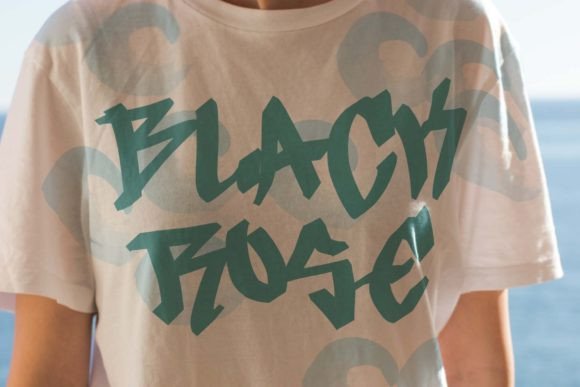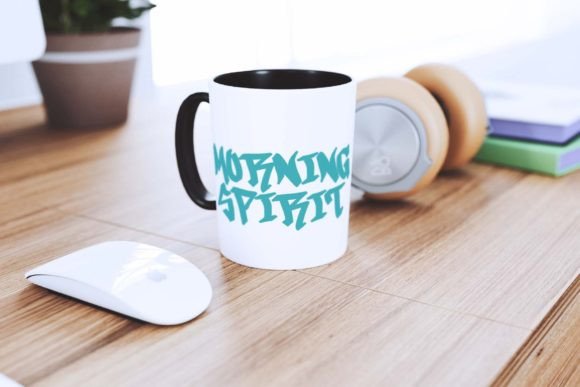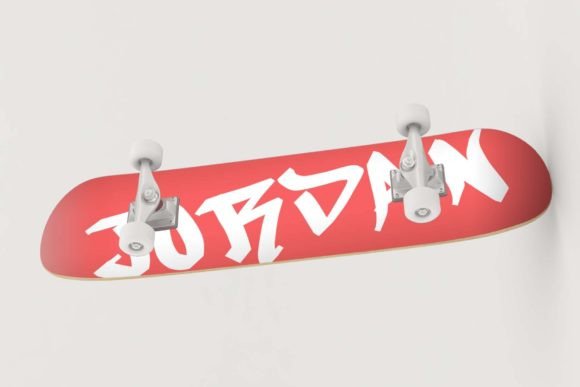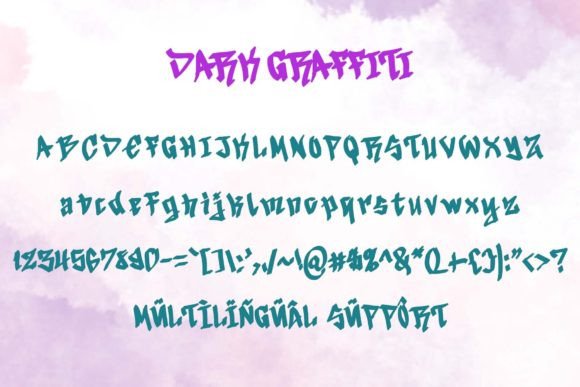
Unleash Your Creativity with Dark Graffiti Font
Are you a designer, artist, or crafter looking for a unique and elegant font to elevate your creative projects? Look no further than the Dark Graffiti Font. This stunning font is perfect for adding a touch of edginess and sophistication to your designs, making it ideal for a wide range of applications.
What is Dark Graffiti Font?
Dark Graffiti is a beautifully crafted graffiti font that boasts an elegant and distinctive style. It is designed to provide a bold and eye-catching look, making it perfect for designs that require a statement piece. The font comes equipped with a comprehensive set of characters, including uppercase and lowercase letters, numerals, punctuation marks, and multilingual support.
Key Features of Dark Graffiti Font
• Uppercase and Lowercase Letters: The font includes a full set of uppercase and lowercase letters, allowing you to create a wide range of designs and text styles.
• Numerals and Punctuation: The font also includes a set of numerals and punctuation marks, making it easy to add numbers and special characters to your designs.
• Multilingual Support: With multilingual support, you can create designs in multiple languages, making it perfect for global brands and projects.
Uses of Dark Graffiti Font
Dark Graffiti Font is an incredibly versatile font that can be used for a wide range of creative projects, including:
• Street Art and Wall Paintings: Add a touch of elegance and sophistication to your street art and wall paintings with this unique font.
• T-Shirt and Apparel Design: Create stunning t-shirt and apparel designs with Dark Graffiti Font, perfect for fashion brands and designers.
• Logo Design: Use Dark Graffiti Font to create bold and eye-catching logos for your brand or business.
• Sticker and Decal Design: Design custom stickers and decals with Dark Graffiti Font, perfect for promotional materials and merchandise.
• Tattoo Design: The font’s unique style makes it perfect for tattoo designs, adding a touch of elegance and sophistication to body art.
• Bag and Packaging Design: Use Dark Graffiti Font to create stunning bag and packaging designs, perfect for fashion brands and product packaging.
Why Choose Dark Graffiti Font?
So why choose Dark Graffiti Font for your creative projects? Here are just a few reasons:
• Unique Style: Dark Graffiti Font boasts a unique and elegant style that will set your designs apart from the rest.
• Versatility: The font’s comprehensive set of characters and multilingual support make it perfect for a wide range of creative projects.
Dark Graffiti Font is a stunning and versatile font that is perfect for designers, artists, and crafters looking to add a touch of elegance and sophistication to their creative projects. With its comprehensive set of characters, multilingual support, and unique style, this font is sure to become a go-to choice for a wide range of applications. So why wait? Download Dark Graffiti Font today and unleash your creativity!